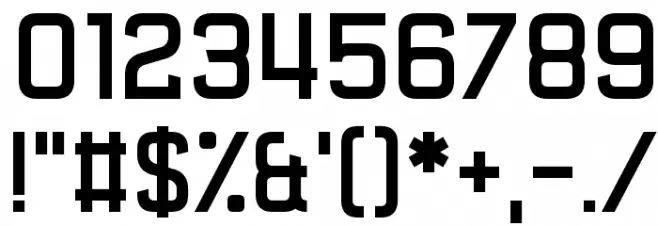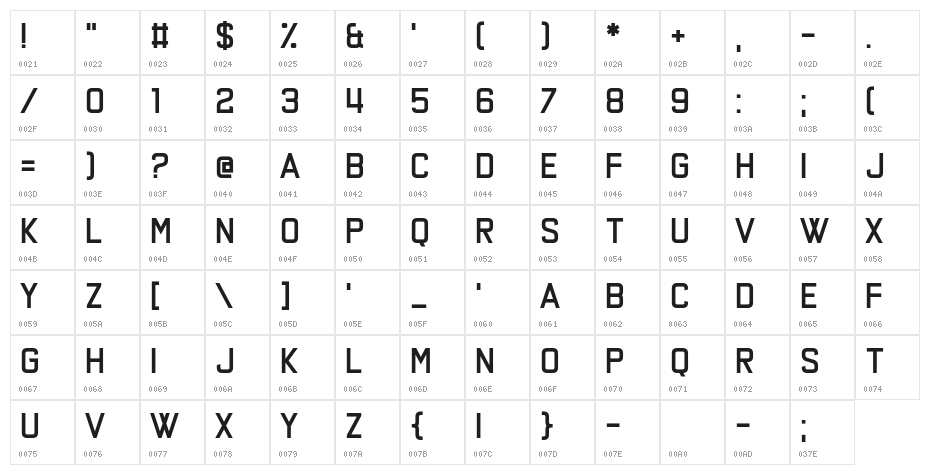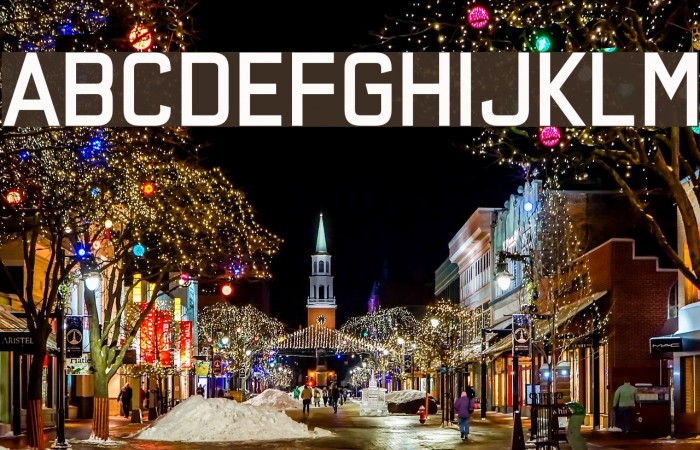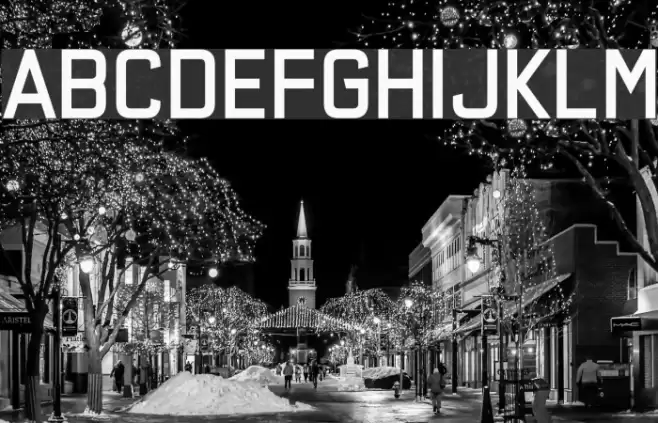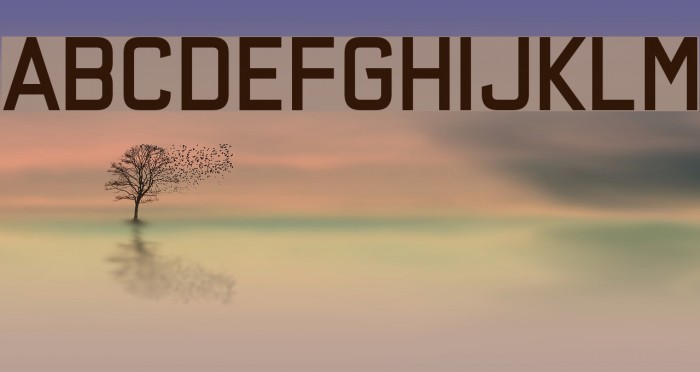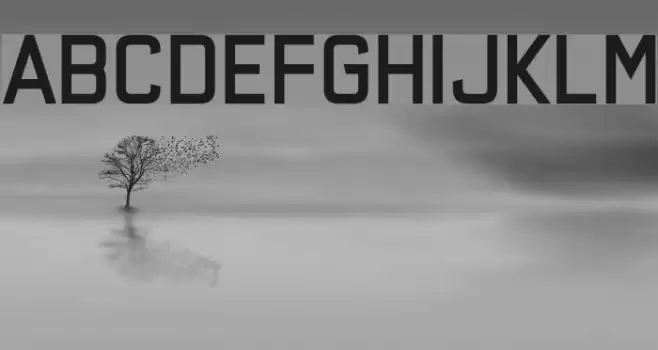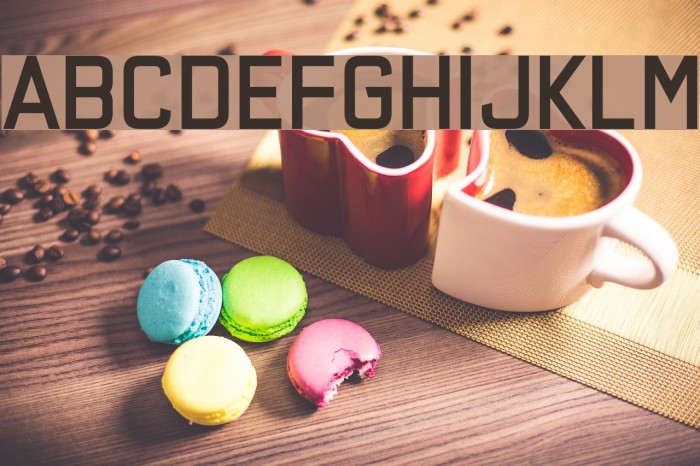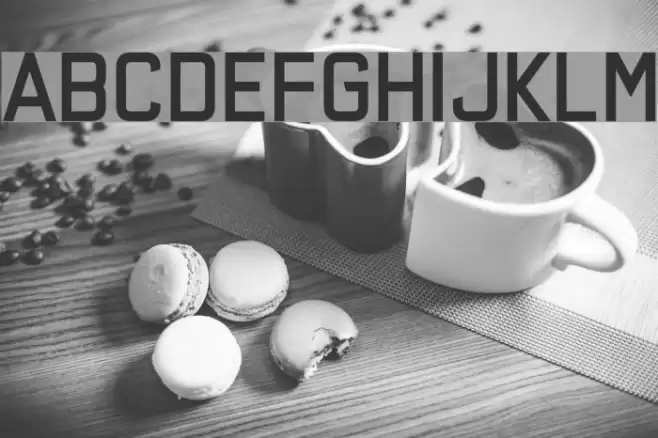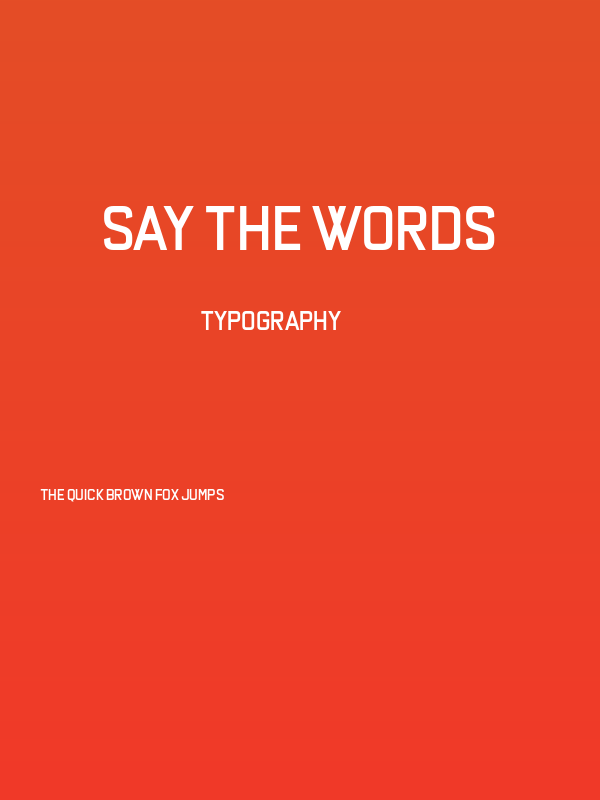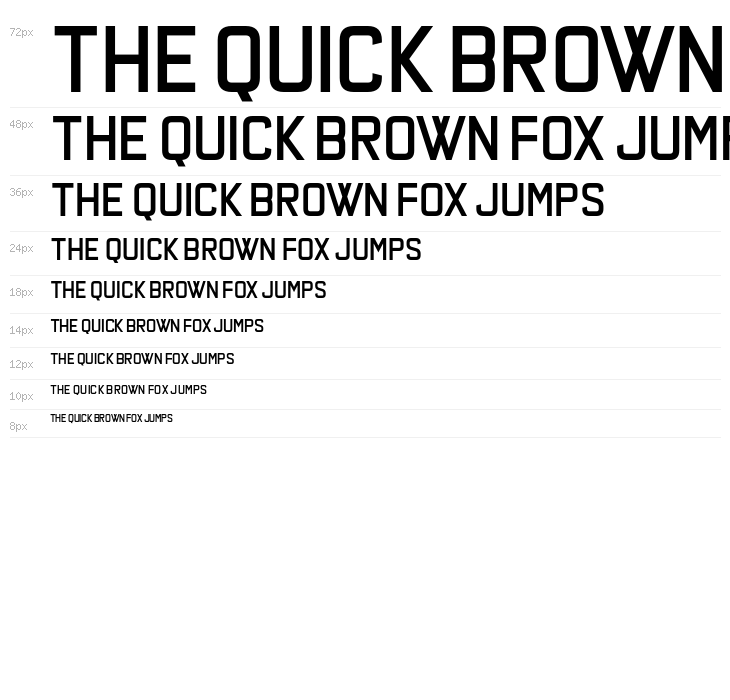
Say the Words Font
Say the Words Description
This font features a bold and modern sans-serif style with clean, straight lines and a geometric structure. The characters are uniform in width, providing a consistent and balanced appearance. The uppercase and lowercase letters maintain a similar height, enhancing readability and creating a cohesive look. The numerals are distinct and clear, matching the overall style of the alphabet. Special characters are well-integrated, maintaining the font's modern aesthetic. The design is versatile, suitable for various applications where clarity and impact are essential.
| Use Case | Headlines, Logos, Digital Interfaces |
| Proposed Projects | Ideal for branding, advertising, headlines, and digital interfaces where a modern and impactful look is desired. |